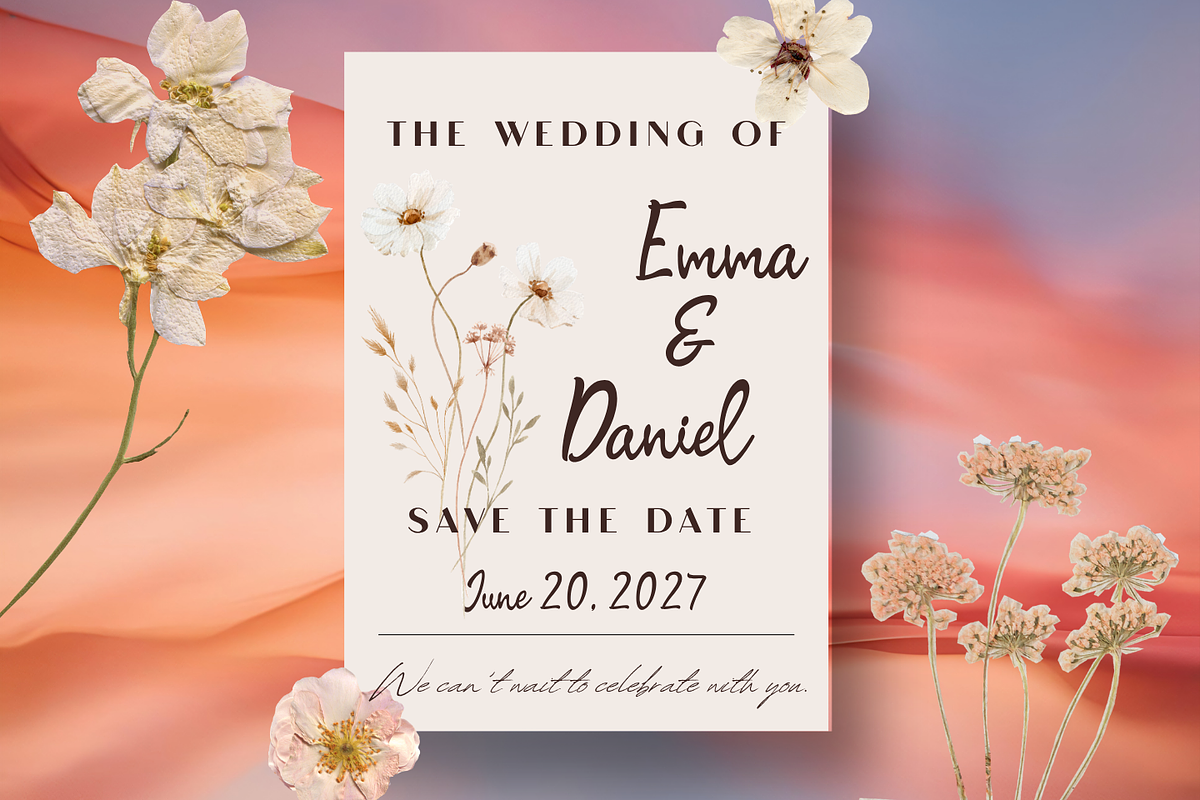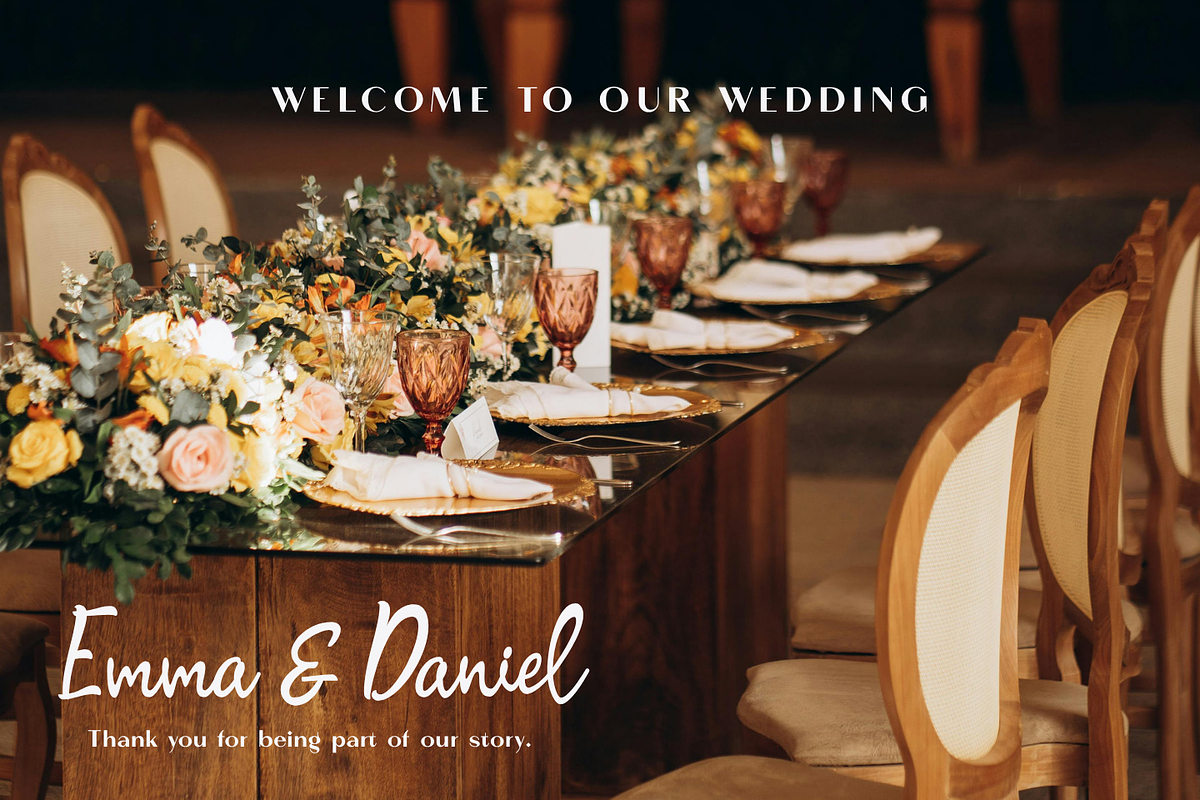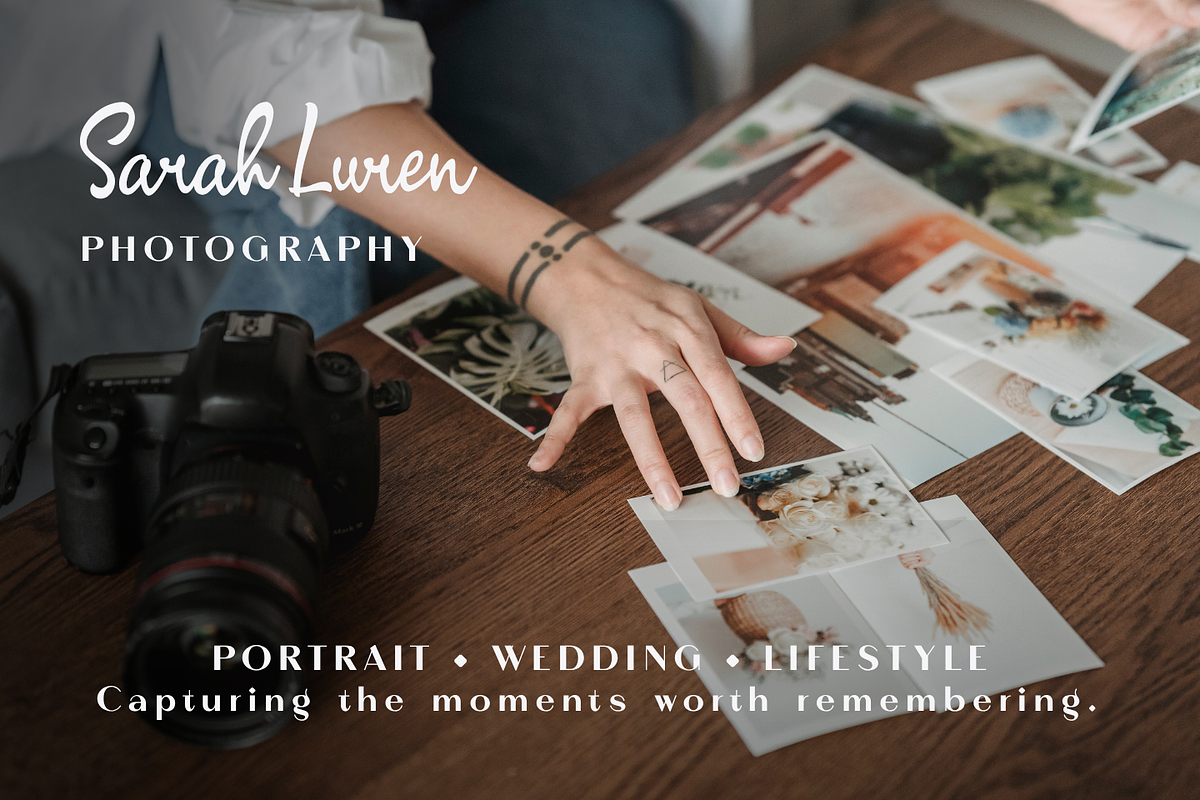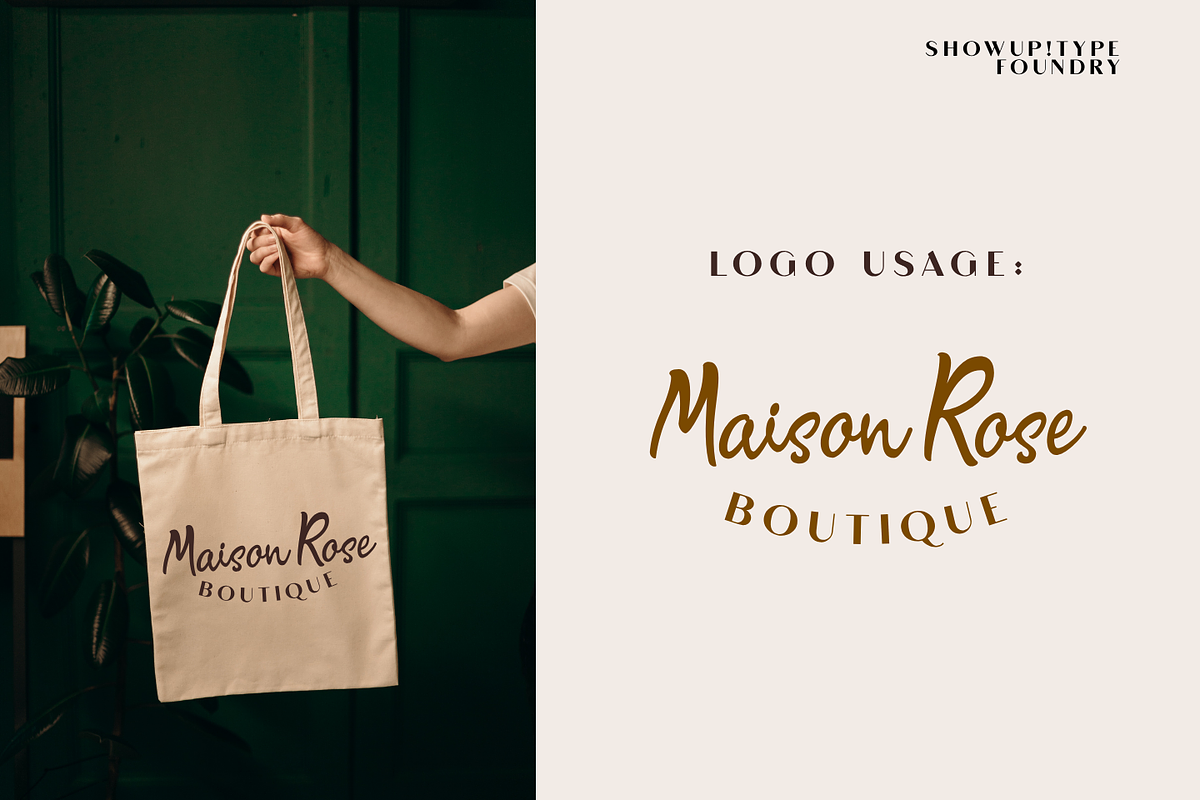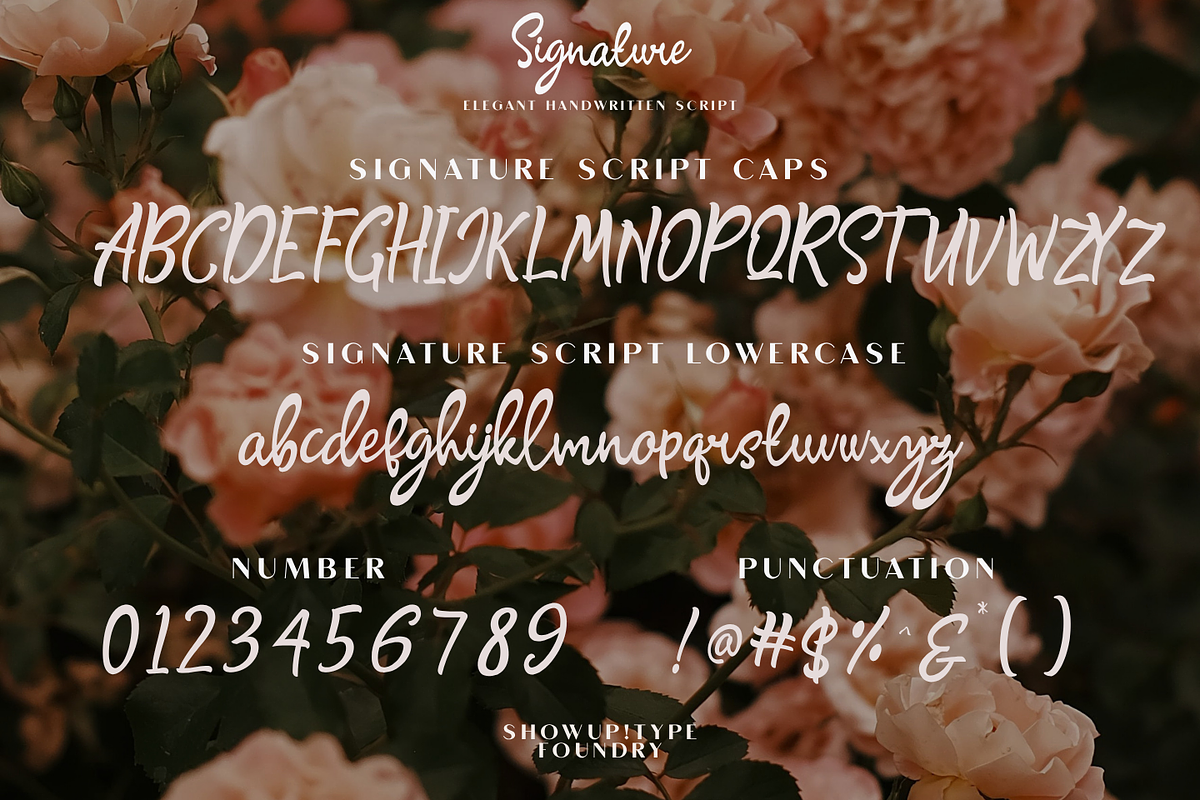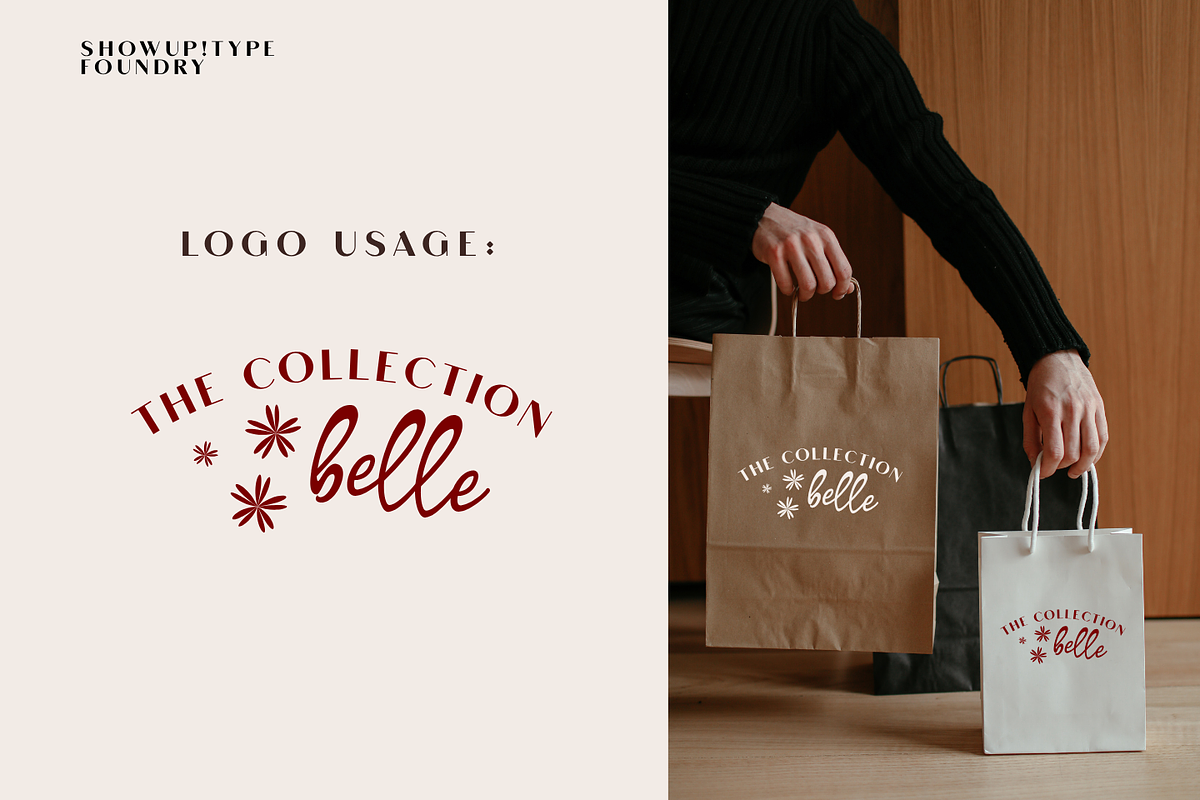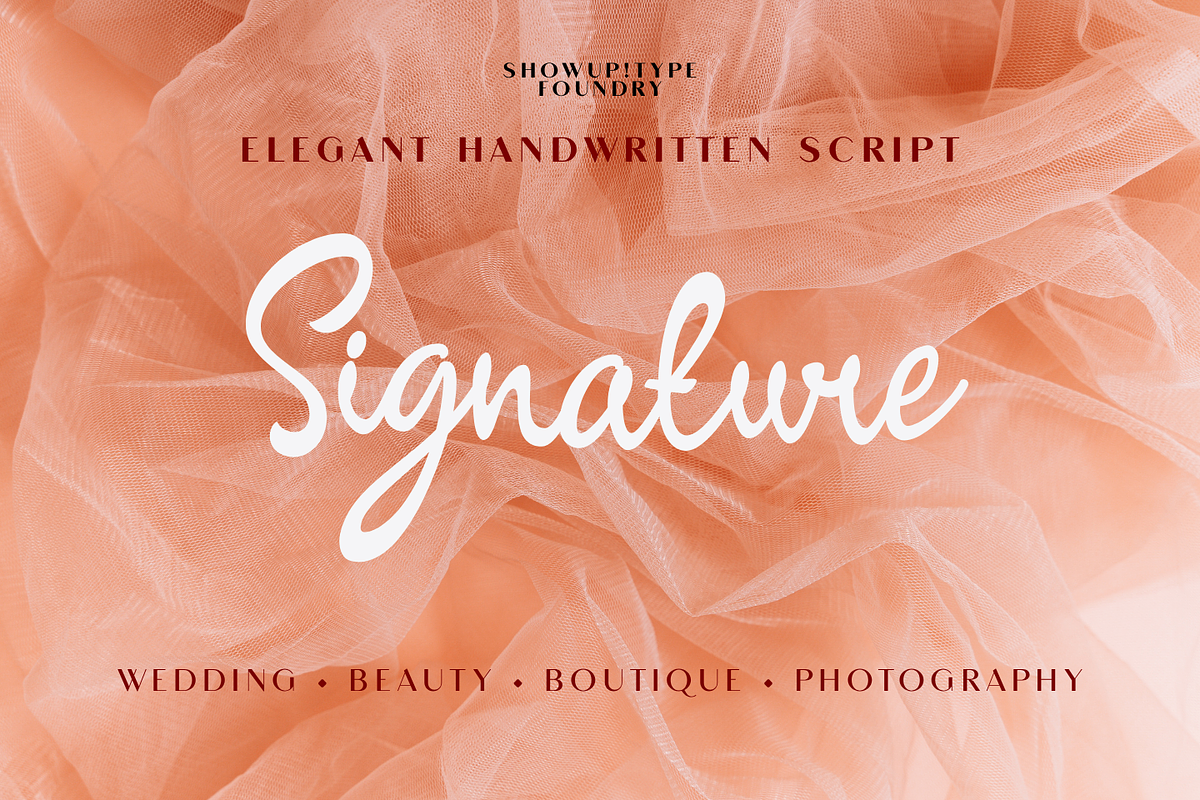
Signature Script
Signature Script – Elegant Handwritten Signature Font
Introducing Signature Script, an elegant handwritten font designed to bring a natural, personal, and sophisticated touch to your creative projects. Featuring smooth flowing strokes and authentic handwritten details, this font is perfect for creating timeless designs with effortless elegance.
Whether you're building a luxury brand, designing wedding stationery, or crafting stylish social media content, Signature Script adds warmth and personality while maintaining excellent readability.
Signature Logos
Luxury Branding
Wedding Invitations
Fashion & Beauty Brands
Business Cards
Photography Watermarks
Quotes
Greeting Cards
Editorial Design
Personal Branding
Authentic Handwritten Style
Beautiful Ligatures